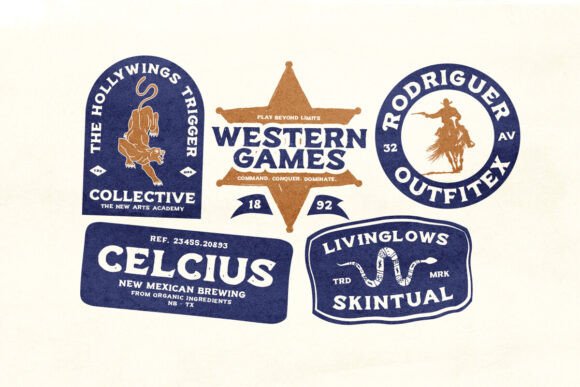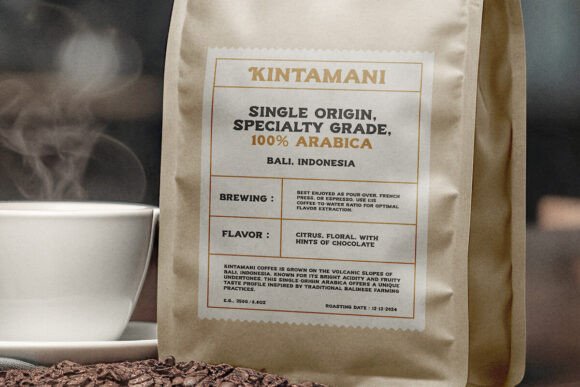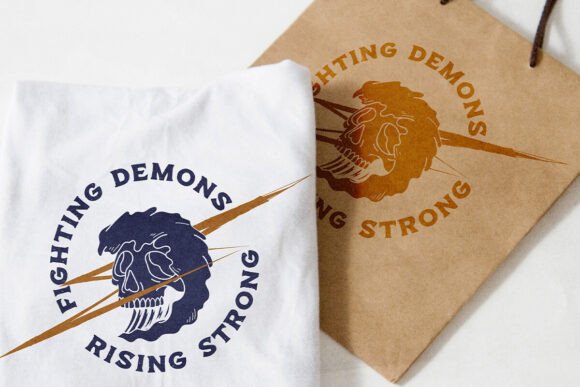
Introduction to Hardwest Font
Hardwest is a retro slab serif with rough and handcrafted looks.
You can use this fonts for many occasions such as logotype, quotes or any projects that require hipster and cowboy vibes With different uppercase and lowercase, you can choose what you want or combine them in a word.
Hardwest Font offers exceptional quality and versatility, making it a valuable addition to your design toolkit. Whether you’re creating for personal projects or commercial use, Hardwest Font delivers professional results.